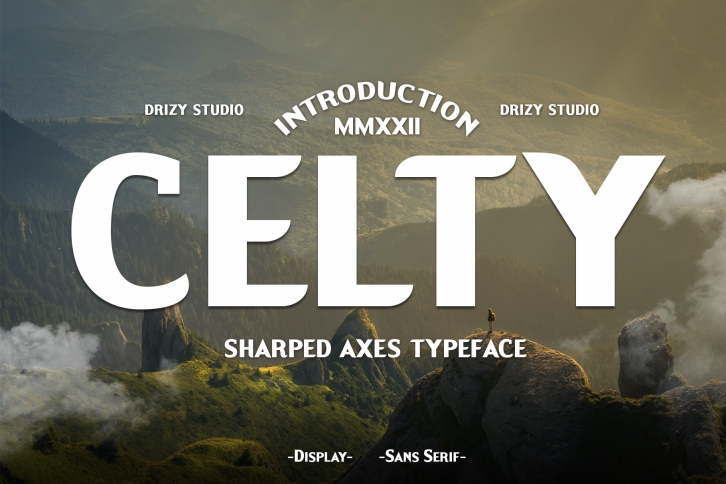
Celty is a Sharped Axes Typeface from Drizy studio. Offering all the basic styles you will need for a successful project.
Celty Features:
Uppercase & Lowercase Numeral & Punctuation Multilingual Ligatures